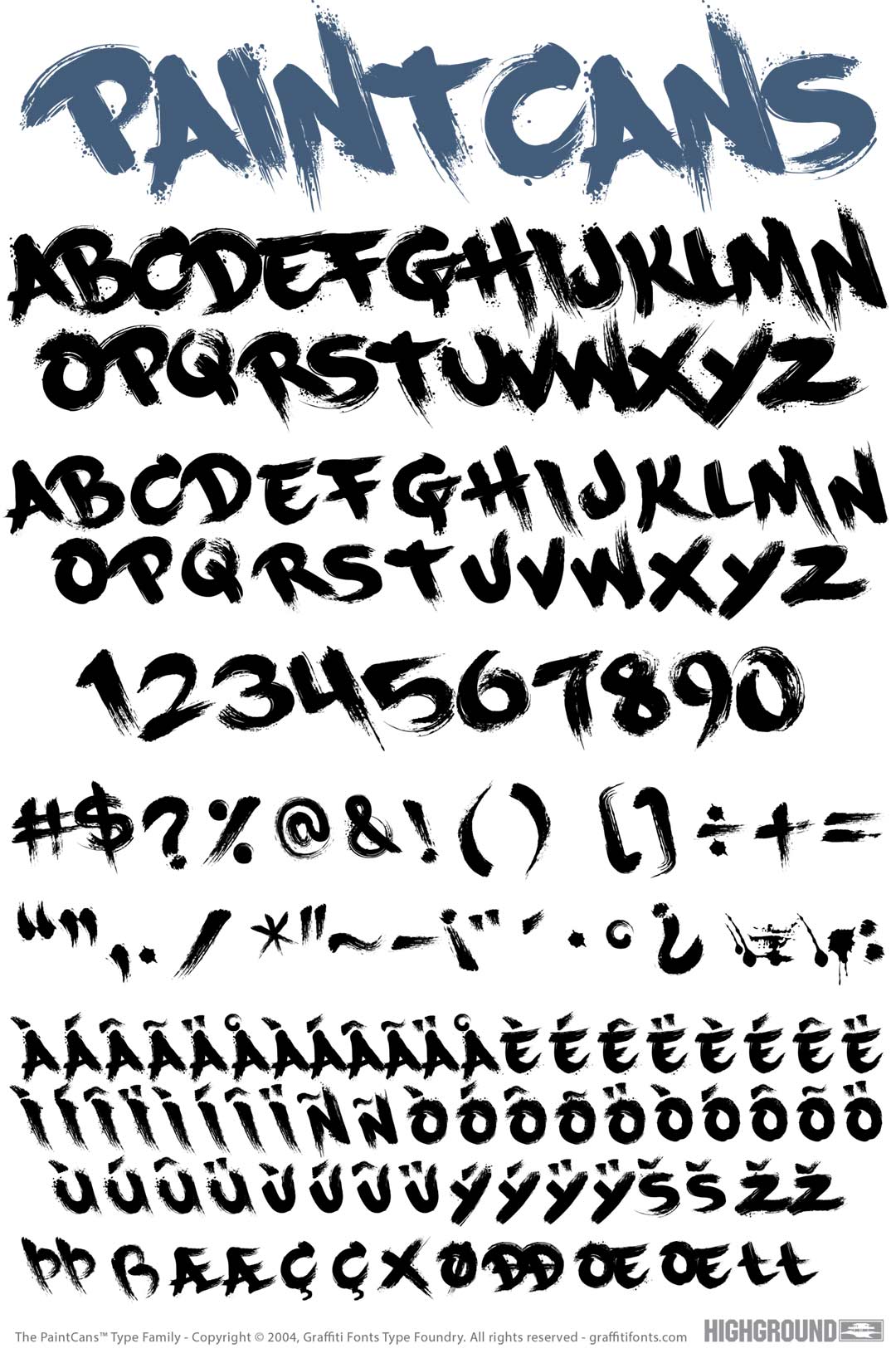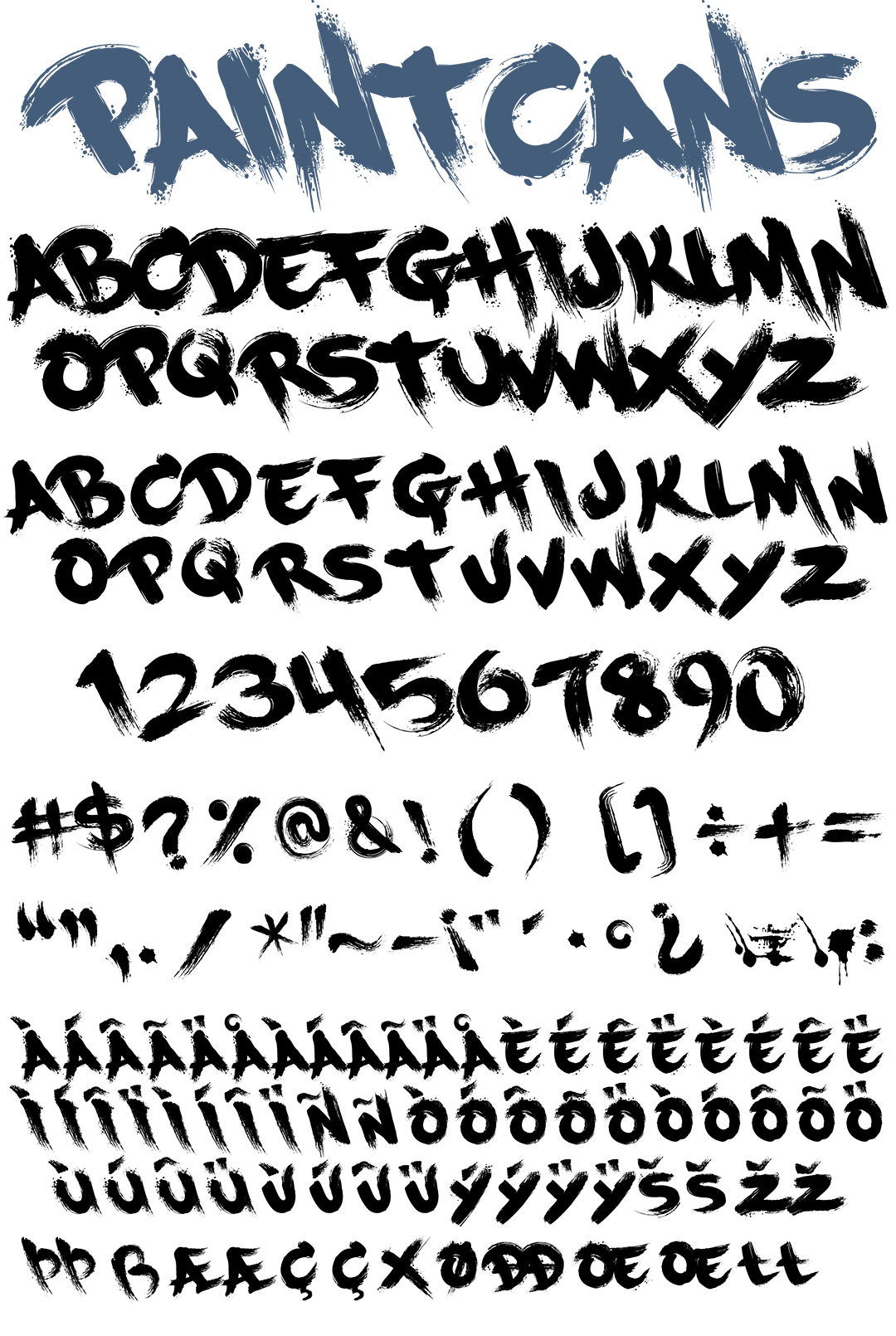
PaintCans Font
PaintCans Graffiti Alphabet
PaintCans Graffiti Font Family
The Paint Cans™ Graffiti Font features over 200 letters, numbers & other characters in a rough paintbrush style. Influenced by simple tag styles and made to look quick & irregular the letters in this font are danced back & forth for a somewhat sloppy and random appearance. The very rough edges & tiny streaks, specs & splatters will add a lot of detail to your composition. Basic Latin support and newly refined paths make the latest version of Paint Cans™ much more viable & versatile than previous versions.